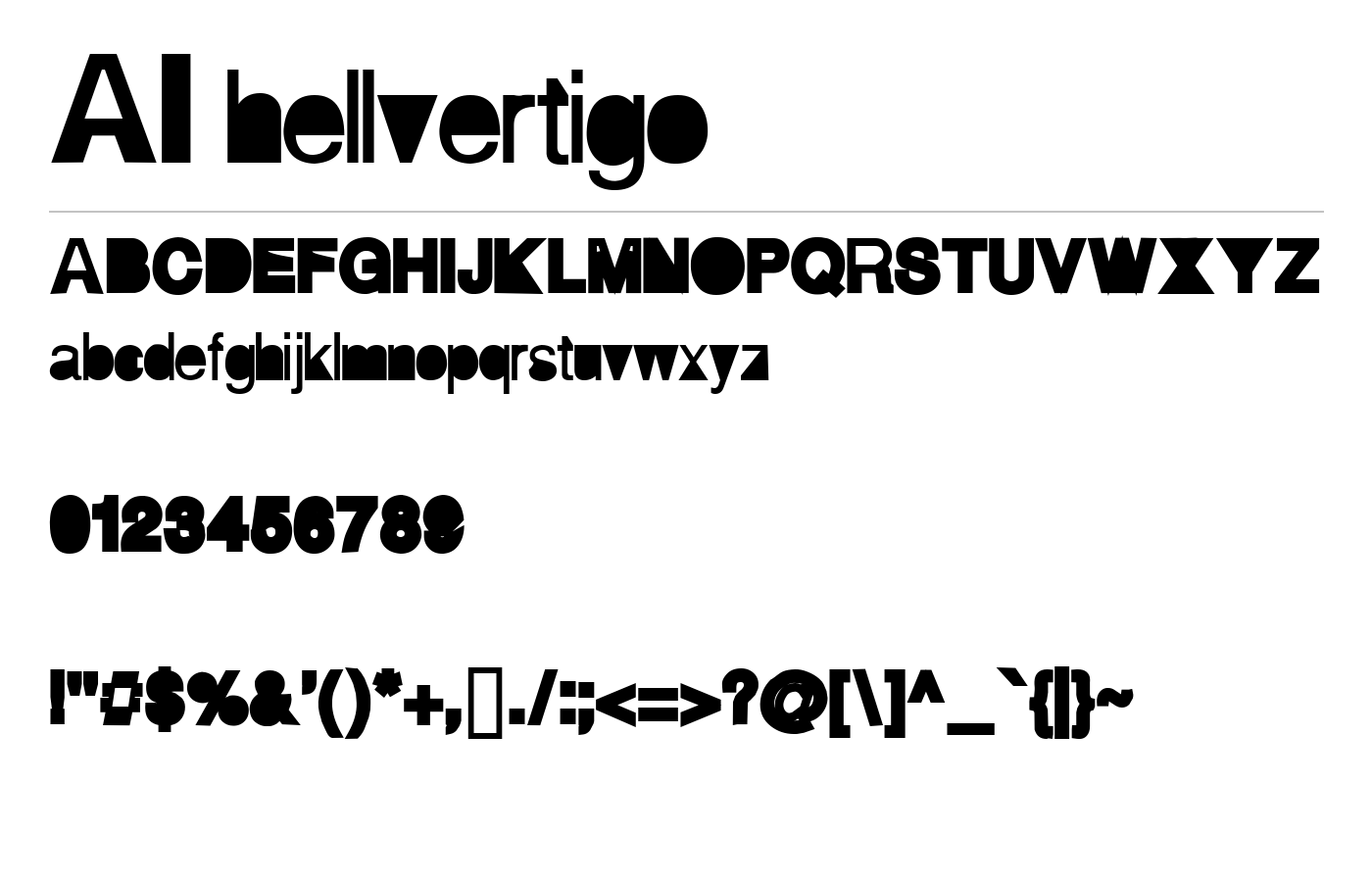
AI hellvertigo is a bold, geometric sans serif typeface with a unique, avant-garde twist visible in its sharp angles and cut-out shapes within the letterforms. The font’s condensed width and striking contrast between solid black and negative space give it a dramatic, modern feel ideal for eye-catching headlines, logos, and branding that demands attention. Its playful yet edgy personality works well for creative industries and contemporary designs seeking a strong visual impact.
AI hellvertigo Font